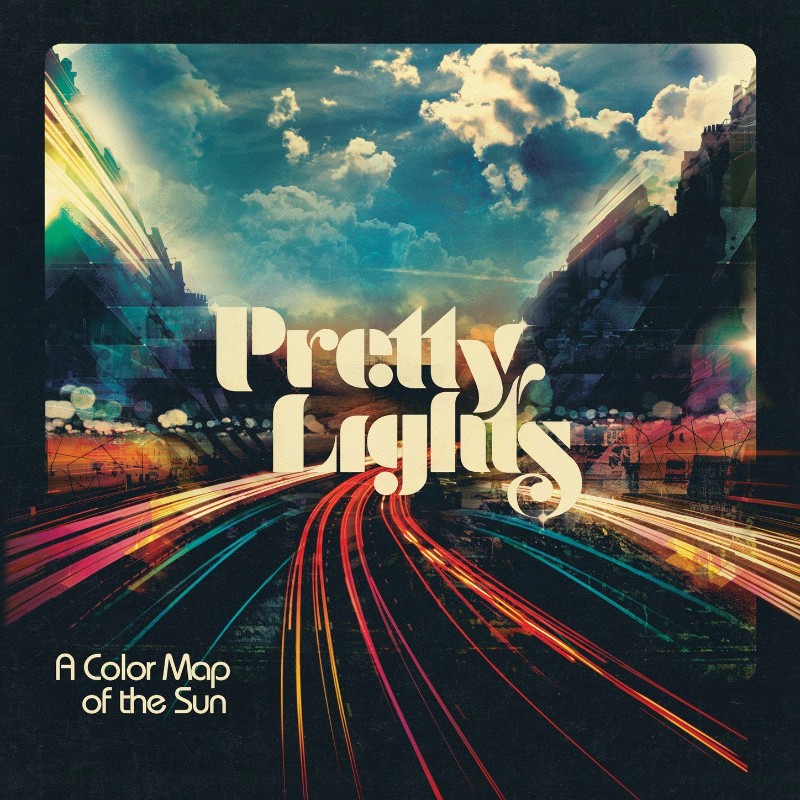
Pretty Lights Font
ElectronicPretty Lights is an American electronic music producer and DJ, real name Derek Vincent Smith. The image above is the cover of the fourth studio album by Pretty Lights, "A Color Map of the Sun" released on 2nd July 2013.
The text "Pretty Lights" on the album cover resembles the heavily altered Reklame Stencil font by Volcano Type, and the album title "A Color Map of the Sun'' is presented in Bauhaus Medium font.